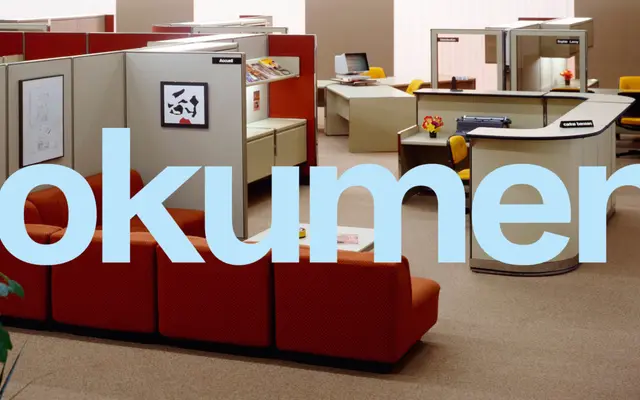
ES Dokument
Extraset · Xavier Erni, Arthur Schwarz · 2020
A 60-style grotesque superfamily drawn from early 20th-century German industrial sources, with high-waisted capitals, a distinctive hooked lowercase r and an outstroked single-storey a giving it clear personality across three widths.
Designed by Xavier Erni and Arthur Schwarz between 2020 and 2022, the family spans condensed, standard and extended widths with ten weights each and matching italics, covering everything from tight package-insert text to large-format headlines. OpenType stylistic sets allow angled terminal strokes on key capitals (E, F, L, T, Z) that pull the design closer to its industrial grotesque origins, alongside barred I and J and softer alternate a and r forms for a more neutral setting. A variable font file is available on request with purchase of the complete family.
Directly inspired by early 20th-century German industrial grotesques, with distinctive features such as high-waisted capitals and a hooked lowercase r placing it firmly in the grotesque tradition with a contemporary inflection.